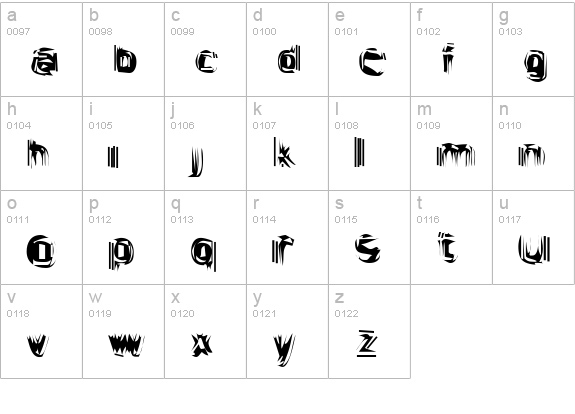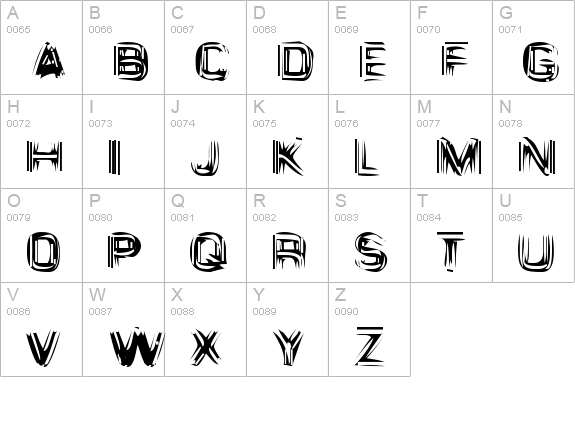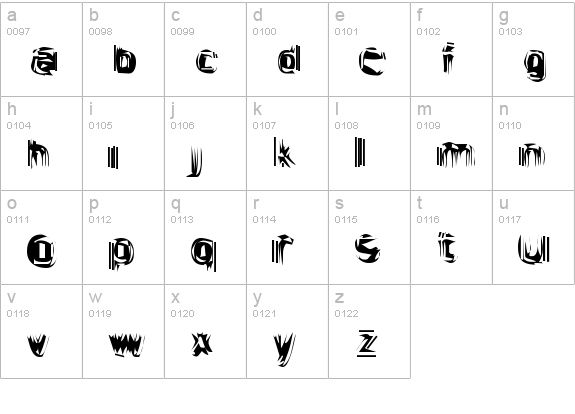
Astigama Tizm Font Details
Astigama Tizm font is a unique and stylish typeface that exudes a modern and artistic vibe. Its sleek lines and geometric shapes make it perfect for a wide range of design projects, from branding to web design to print materials. This font is both elegant and eye-catching, making it a versatile choice for any designer looking to make a statement. What sets Astigama Tizm font apart is not only its striking appearance but also the fact that it is completely free to download. Yes, you read that right - this stunning font is available for free at FontsMarket.com. So whether you're a seasoned designer looking to add a fresh touch to your projects or a newcomer eager to experiment with new fonts, Astigama Tizm font is a must-have in your font collection. Download it today and let your creativity soar!